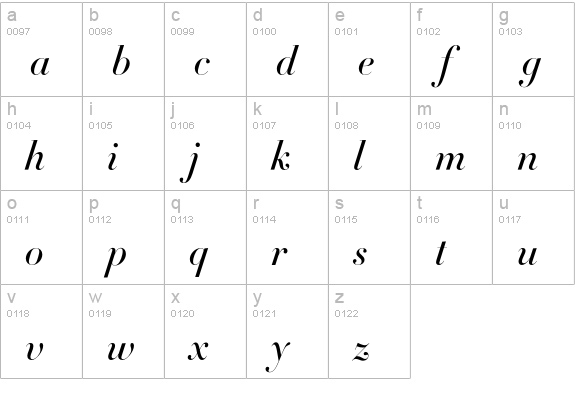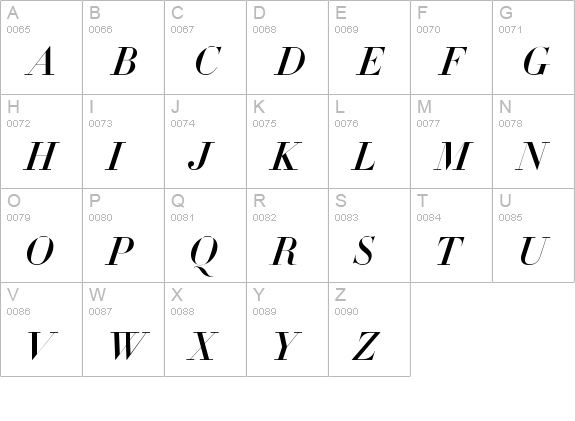
Didot-HTF-M42-Medium-Ital is a balanced, medium-weight variant in the Didot typeface family \xE2\x80\x94 well suited to sub-headlines, navigation, and balanced editorial work.
The Didot-HTF-M42-Medium-Ital font is a stylish and elegant typeface that exudes sophistication and class. Its sleek, modern design with just the right amount of flair makes it perfect for a variety of projects, from branding to editorial design. The medium weight and italic style of this font strike the perfect balance between readability and style, making it a versatile choice for both print and digital media. What's even better is that this font is available for free download at FontsMarket.com. You can easily add this beautiful typeface to your collection without any cost, allowing you to elevate your design projects without breaking the bank. Don't miss out on the opportunity to enhance your work with the timeless charm of Didot-HTF-M42-Medium-Ital font - download it for free today!